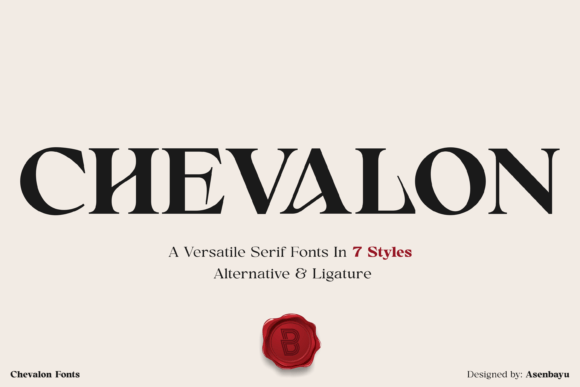
Introducing Chevalon Font: A Versatile Serif Font for Elegant Designs
In the world of typography, a good font can make all the difference in creating a lasting impression. If you’re looking for a font that exudes elegance, sophistication, and strength, look no further than Chevalon Font. Inspired by medieval Roman letters, Chevalon is a versatile serif font that consists of 7 styles, making it perfect for a wide range of design projects.
The Inspiration Behind Chevalon Font
Chevalon Font is inspired by the grandeur of medieval Roman letters, which were known for their strong and elegant appearance. The font’s design is reminiscent of a glorious horse, with each letter carefully crafted to convey a sense of luxury and refinement. The result is a font that is both classic and timeless, yet modern and versatile.
Key Features of Chevalon Font
So, what makes Chevalon Font so special? Here are some of its key features:
- 7 styles: Chevalon Font consists of 7 styles, giving you a range of options to choose from depending on your design needs.
- Serif design: Chevalon Font is a serif font, which gives it a classic and elegant look.
- Medieval inspiration: The font’s design is inspired by medieval Roman letters, which adds a touch of sophistication and luxury.
Use Cases for Chevalon Font
So, what can you use Chevalon Font for? The answer is: almost anything! Here are some ideas to get you started:
- Luxury brand logos: Chevalon Font is perfect for creating luxurious brand logos that exude elegance and sophistication.
- Journals and magazines: The font’s classic design makes it ideal for use in journals and magazines.
- Business cards: Chevalon Font is a great choice for business cards, as it conveys a sense of professionalism and refinement.
- Headlines and titles: The font’s bold and elegant design makes it perfect for use in headlines and titles.
- Social media posts: Chevalon Font can add a touch of sophistication to your social media posts.
- Web design: The font is also suitable for use in web design, where it can help create a luxurious and elegant online presence.
Why Choose Chevalon Font?
So, why should you choose Chevalon Font for your design projects? Here are some reasons:
- Versatility: Chevalon Font is a versatile font that can be used in a wide range of design projects.
- Elegance: The font’s elegant design makes it perfect for creating luxurious and sophisticated designs.
- Readability: Chevalon Font is highly readable, making it ideal for use in body text and headlines.
- Unique: The font’s unique design sets it apart from other fonts, making it a great choice for designers who want to create something different.
In conclusion, Chevalon Font is a versatile serif font that is perfect for designers who want to create elegant and sophisticated designs. With its 7 styles, PUA encoding, and medieval inspiration, Chevalon Font is a great choice for a wide range of design projects. Whether you’re creating a luxury brand logo, journal, business card, or social media post, Chevalon Font is sure to impress.